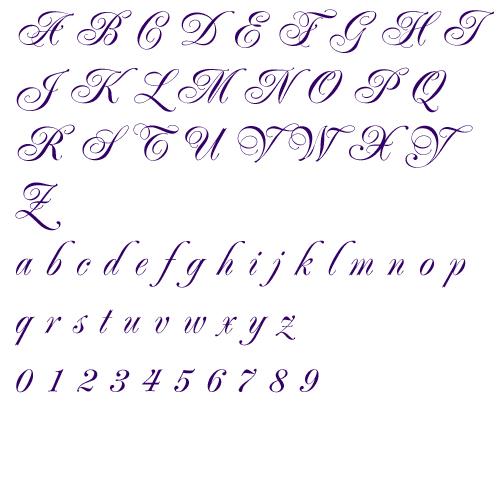
Fireside Threads is happy to present Renaisannce Alphabet machine embroidery font which has Artistic script machine embroidery font, ideal for stitching on decorative pillows and elegant linens. Showcases flowing letters in a rich purple hue. Available in PES, DST and 8 additional formats. included. If you would like to view more embroidery fonts and alphabets please search our embroidery fonts page.